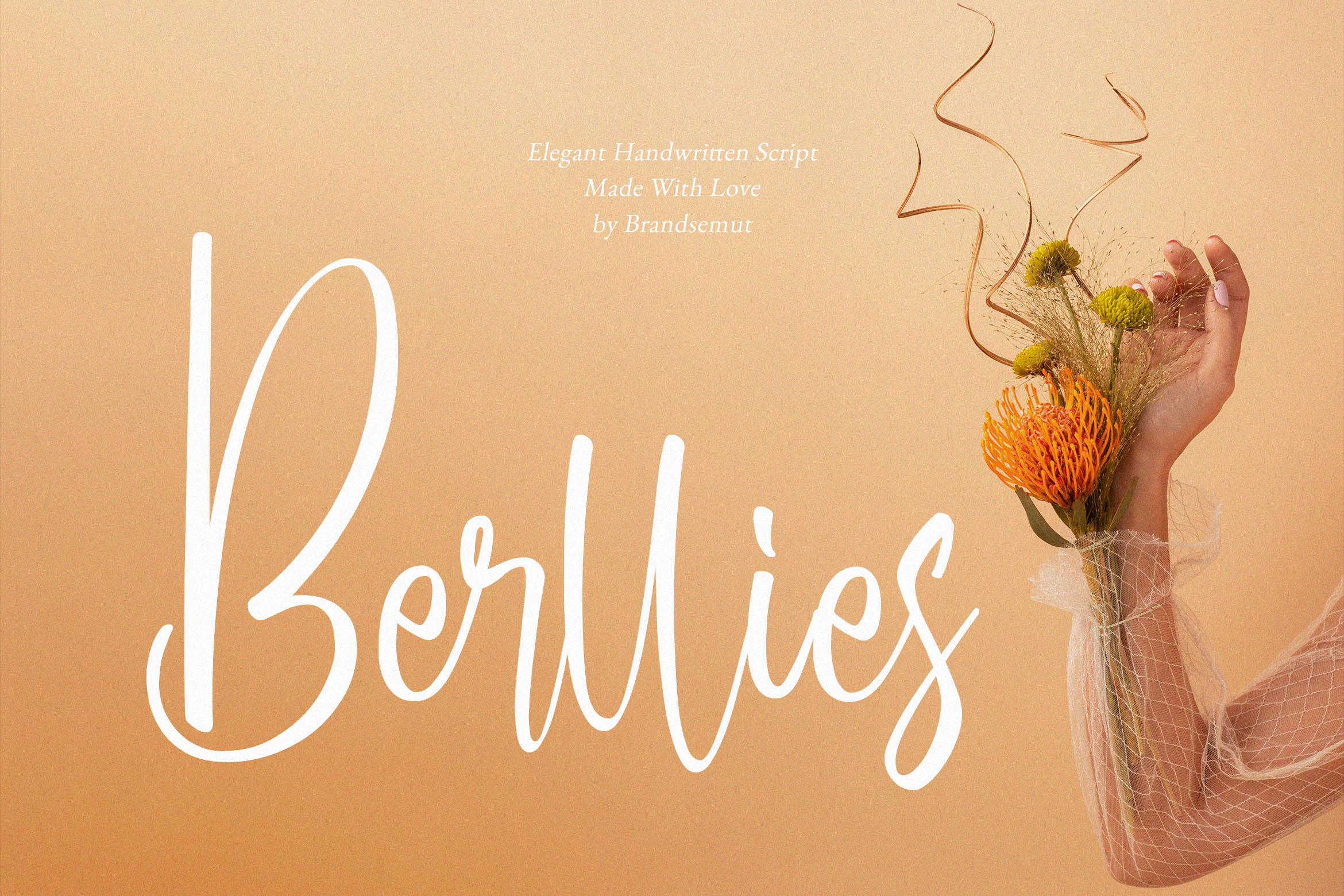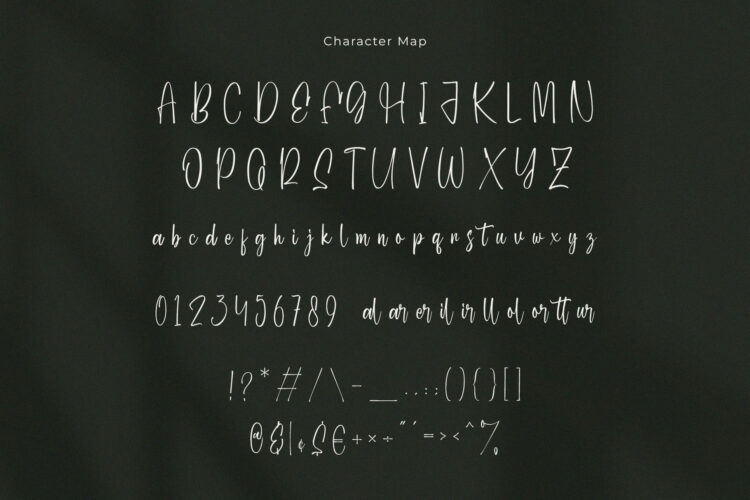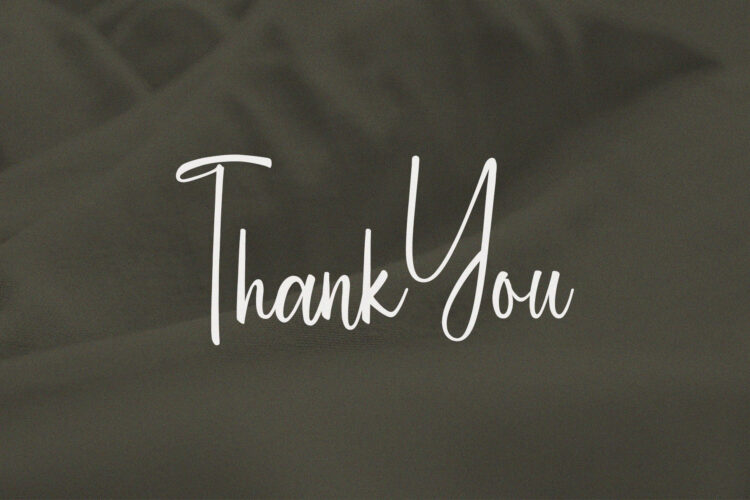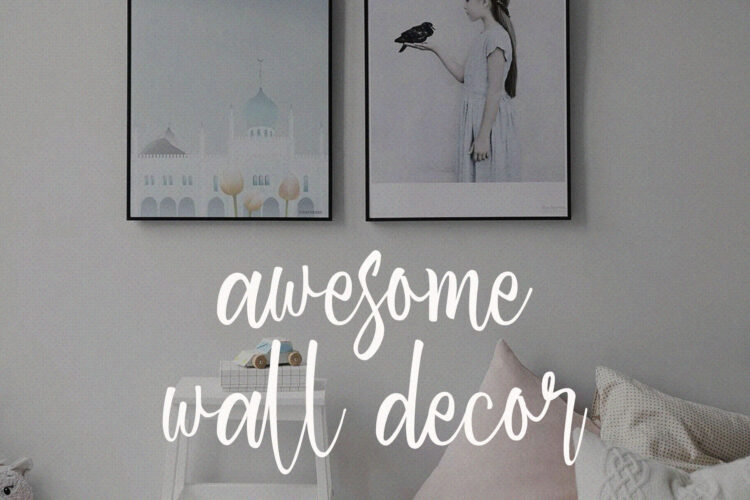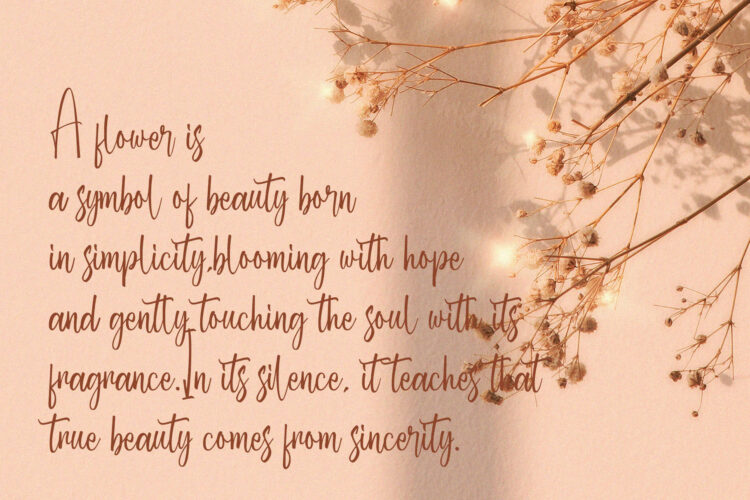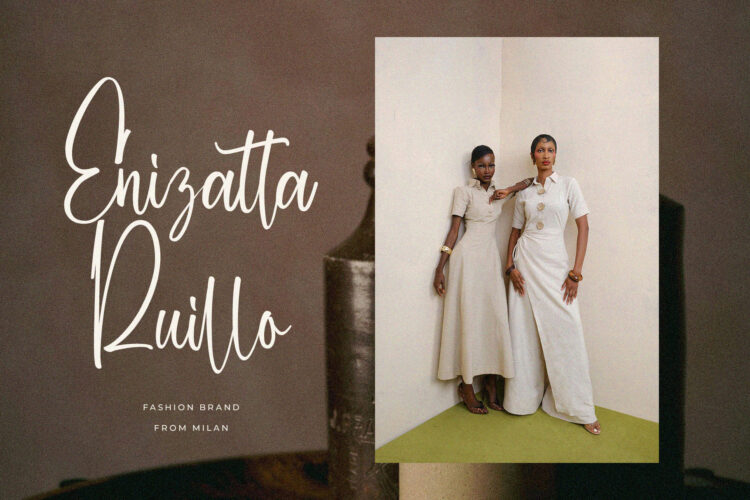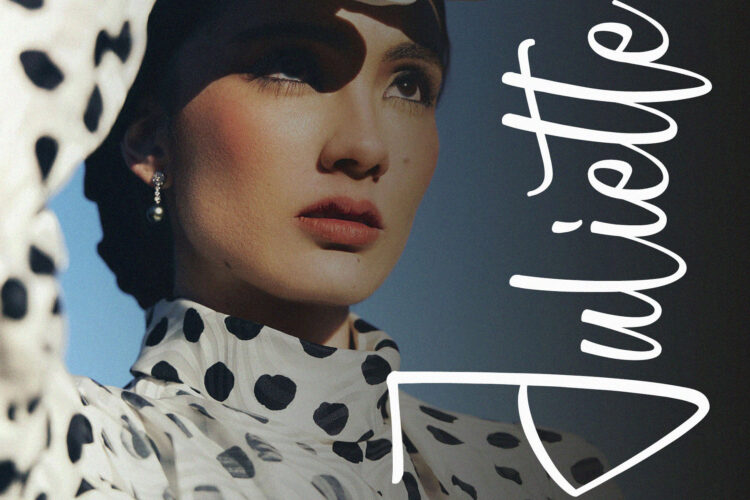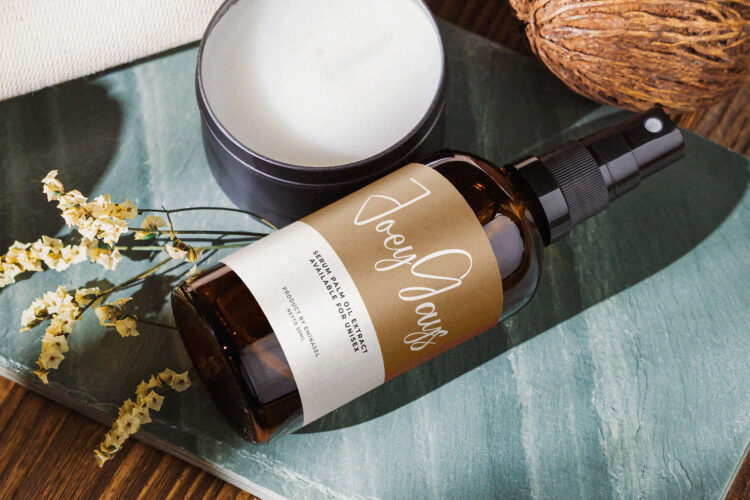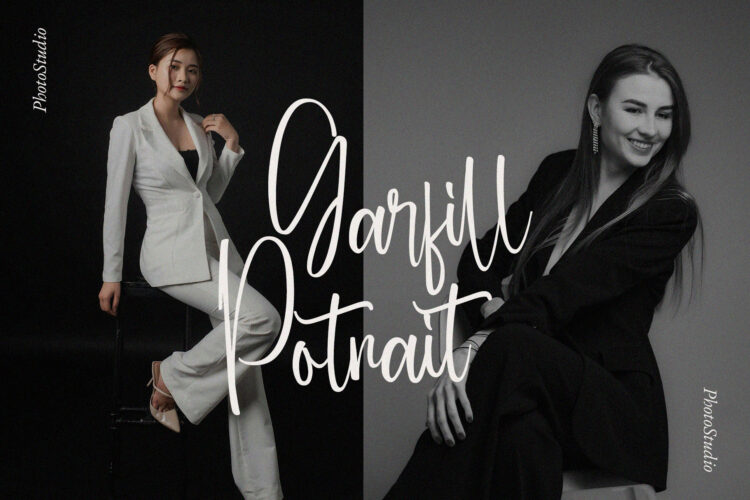
Introducing the new Berllies Script Font is a elegant and stylish handwritten script, that you can use to perfect your design.
You will get full set of lowercase and uppercase letters, multilingual, numerals and punctuation.
Berllies – Elegant Handwritten Script Font